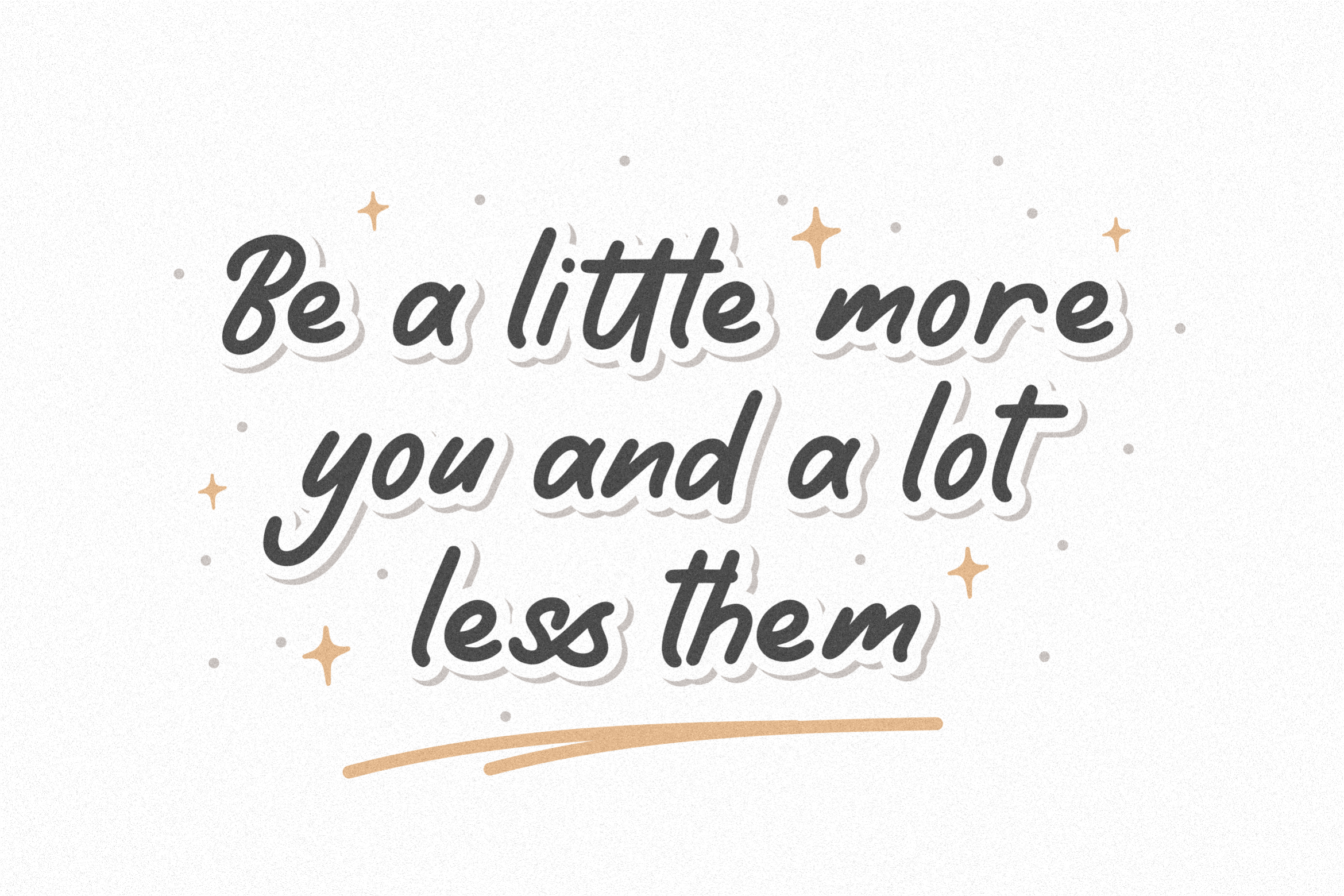
Donnabold Font
Donnabold Script Font
This is a script typeface with monoline lines. can be used as your branding logo, writing for your product design, business cards, weddings, book titles, social media designs, and others. contains standard English letters and some that support multilingual. can be installed in applications such as adobe family or affinity.